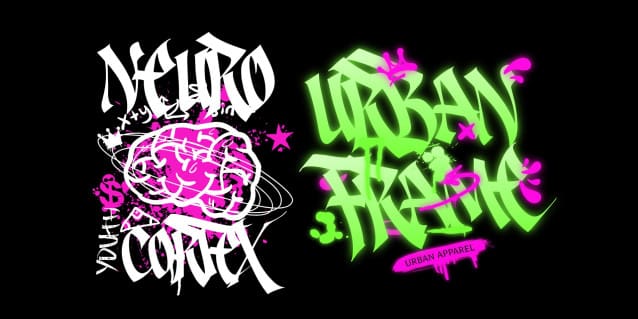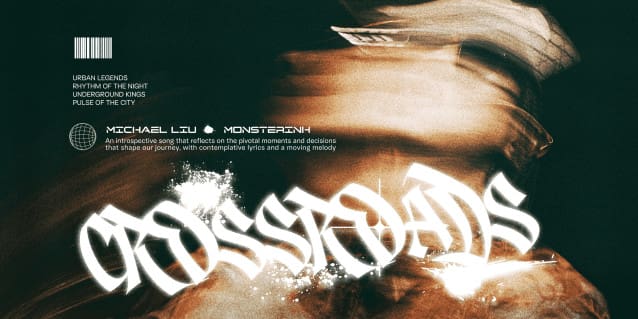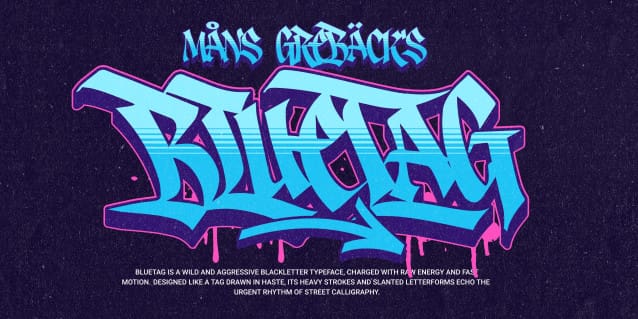
Bluetag Blackletter Font
Bluetag Blackletter Font is a wild and aggressive blackletter typeface, charged with raw energy and fast motion. Designed like a tag drawn in haste, its heavy strokes and slanted letterforms echo the urgent rhythm of street calligraphy. The angular extensions and razor-sharp terminals give the impression of movement, as if each character is cutting through the air.
The style leans into a rebellious aesthetic, merging old-school Gothic structure with urban graffiti flow. Ideal for expressive displays, Bluetag delivers intensity and attitude, creating an unmistakable presence on any surface.
The font is built with advanced OpenType functionality and guaranteed top-notch quality, containing stylistic and contextual alternates, ligatures and more automatic and manual features; all to give you full control and customizability.